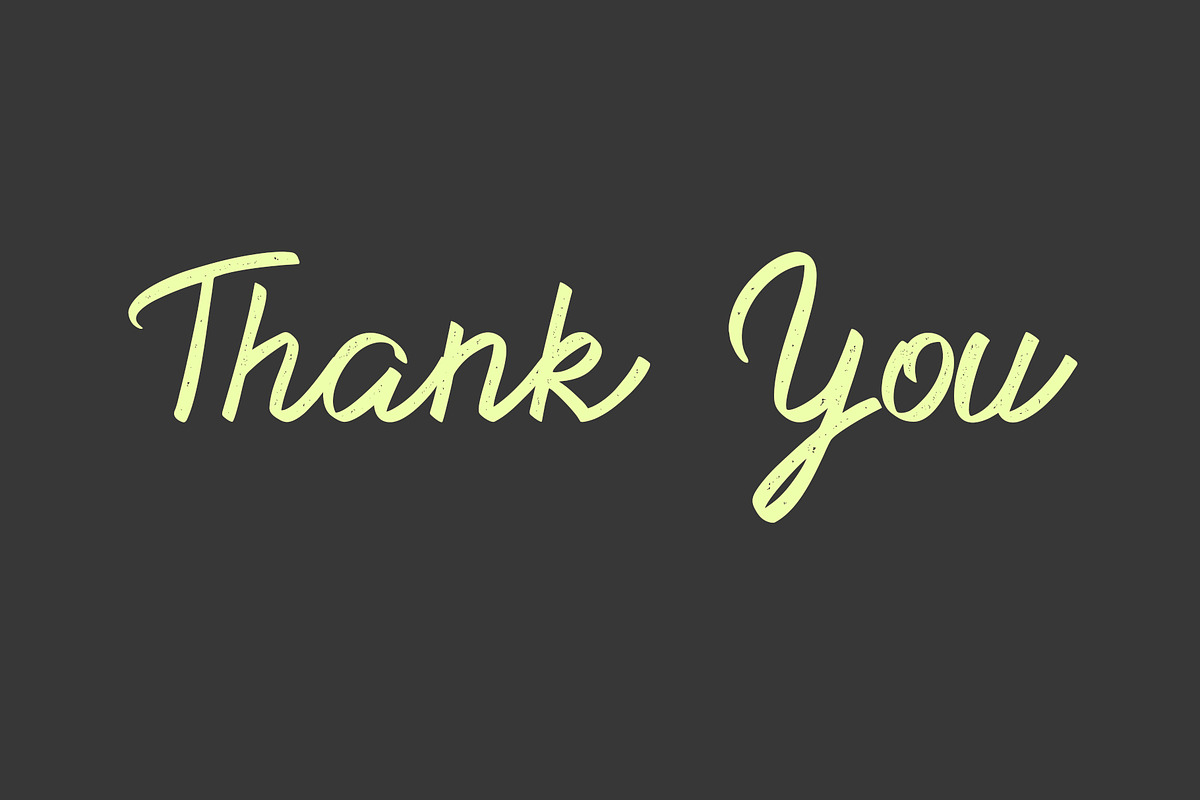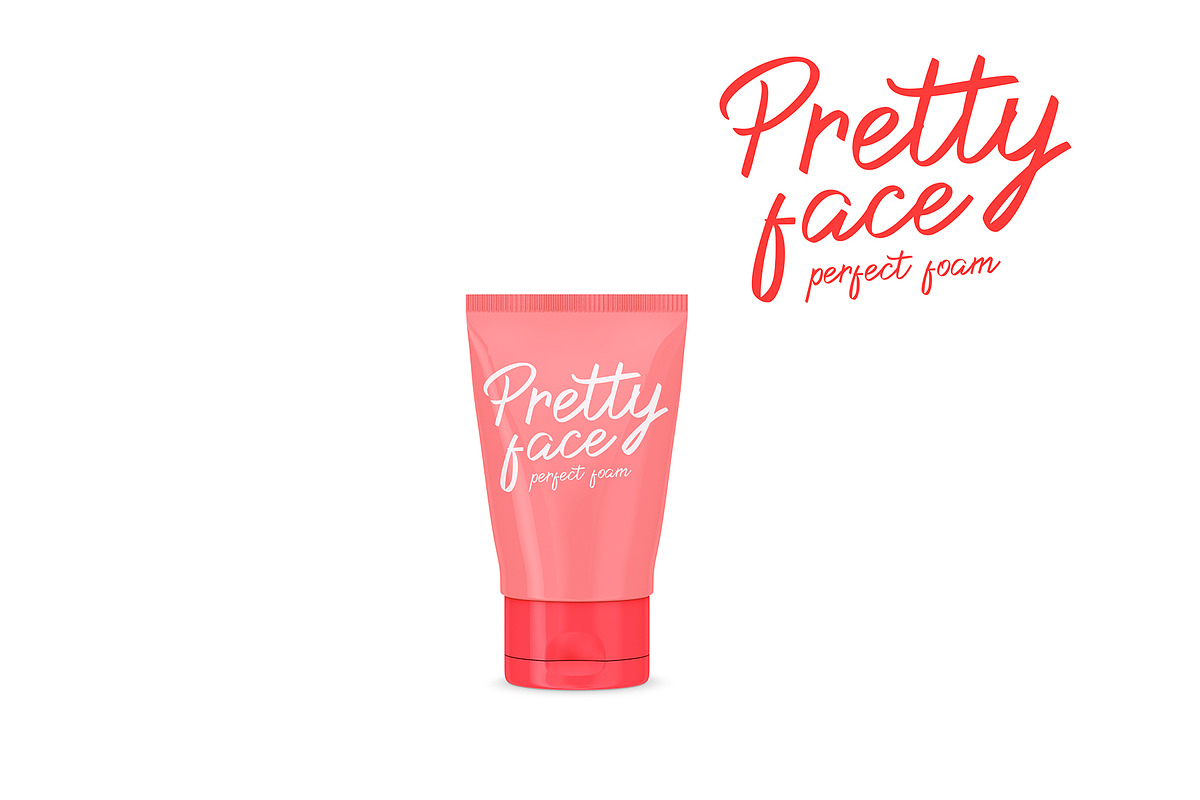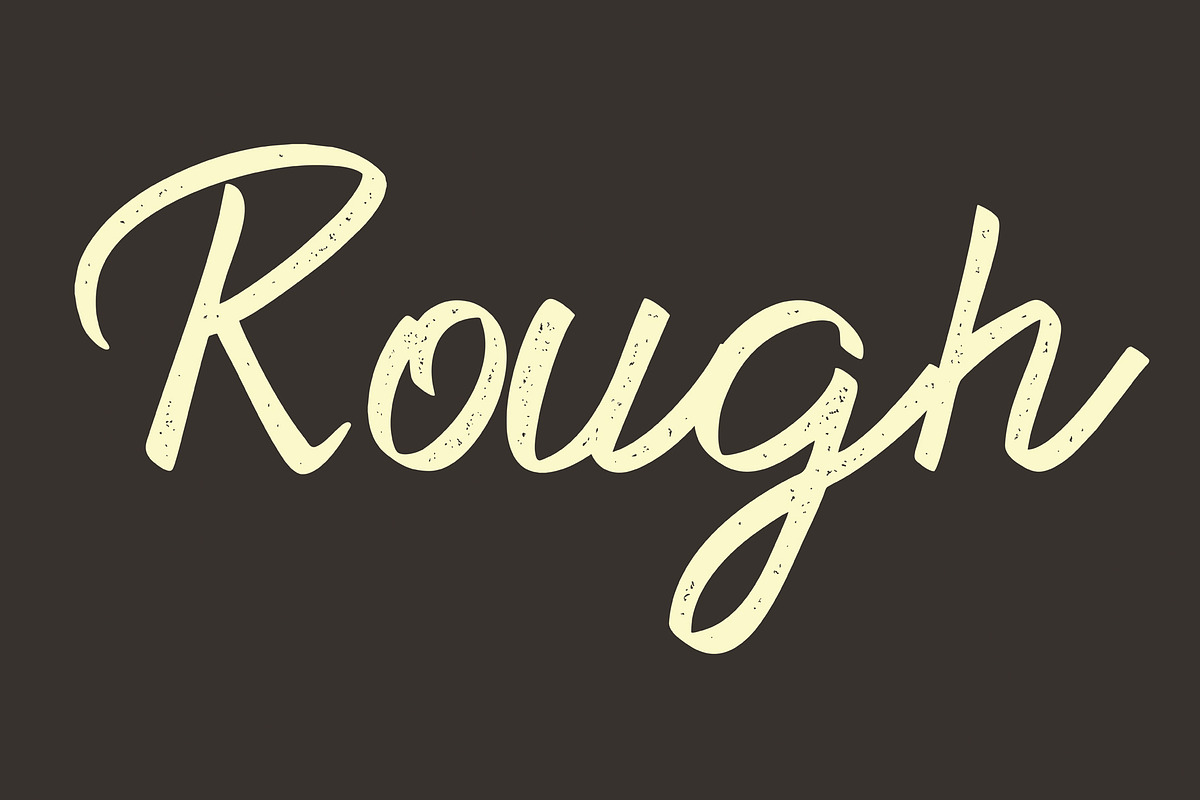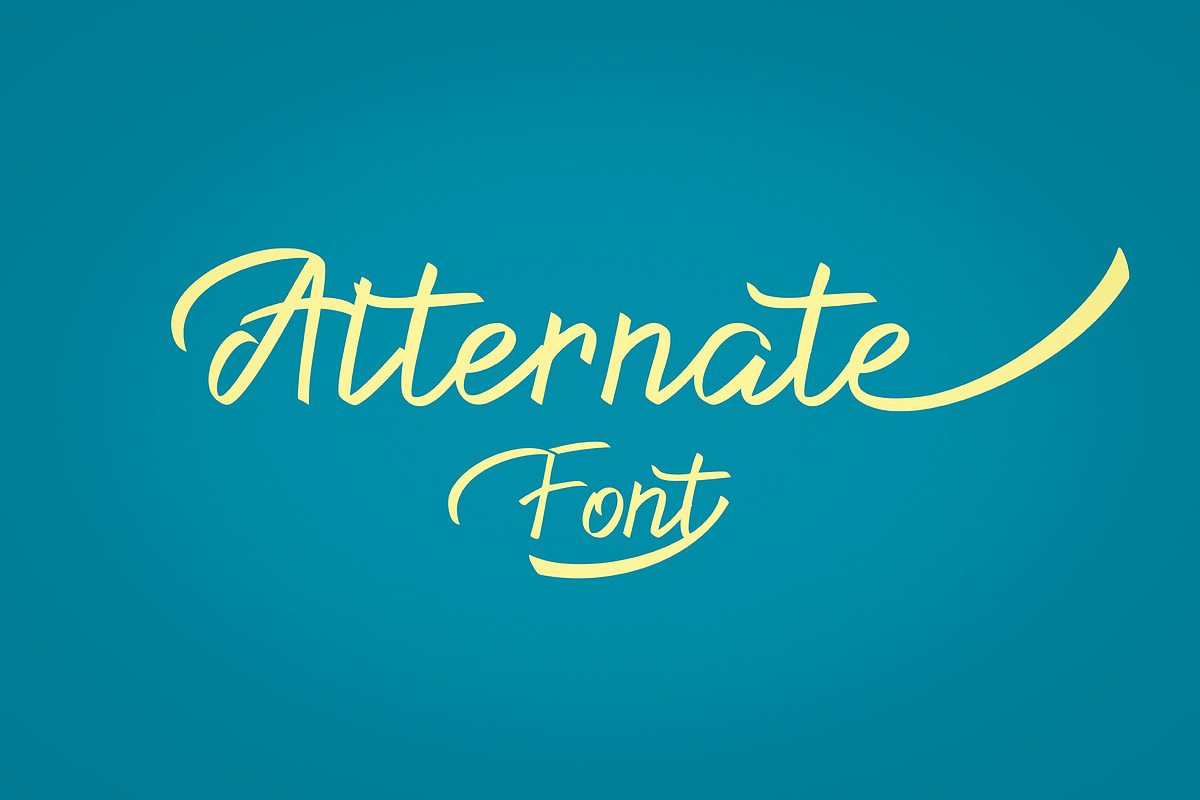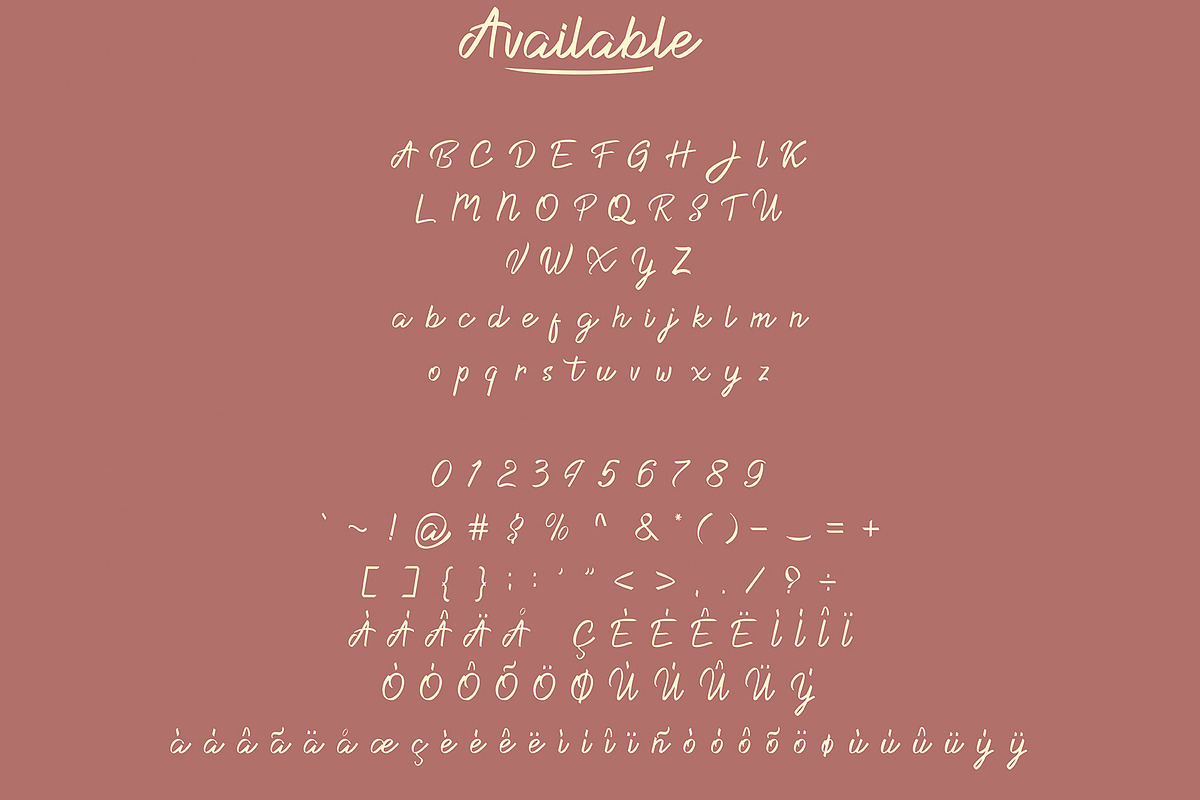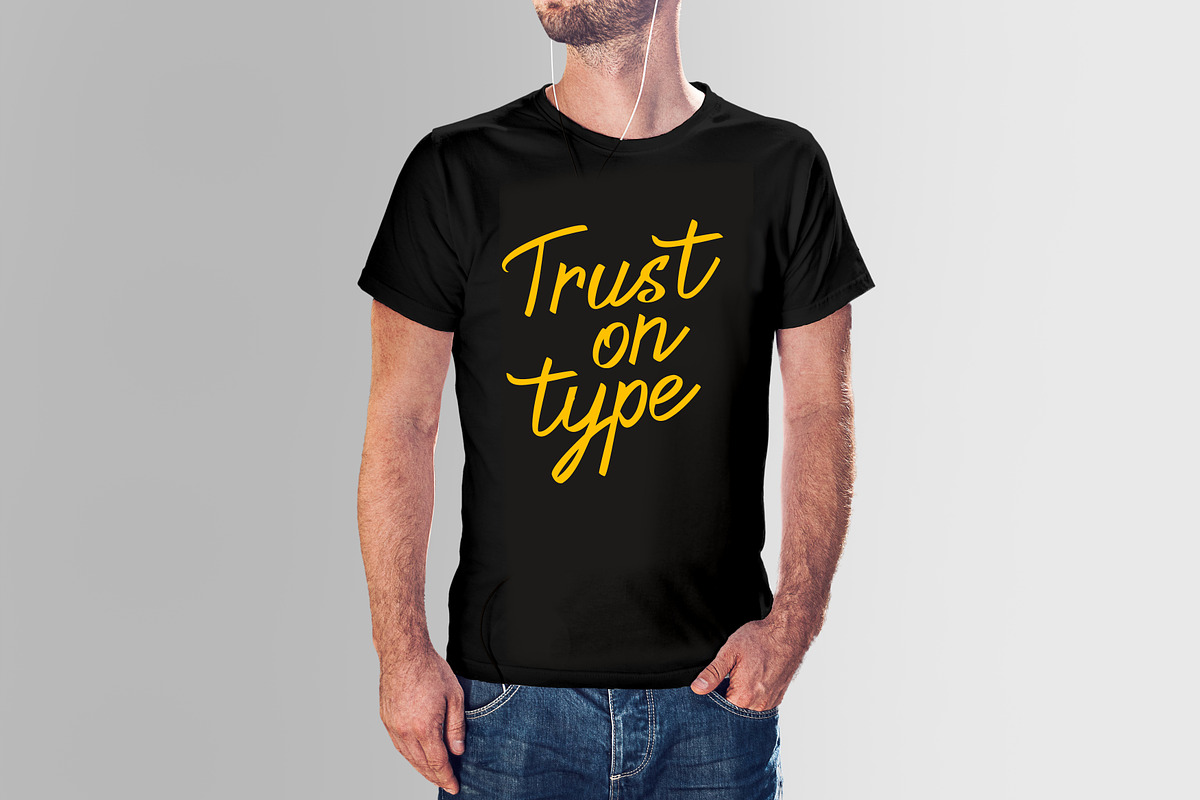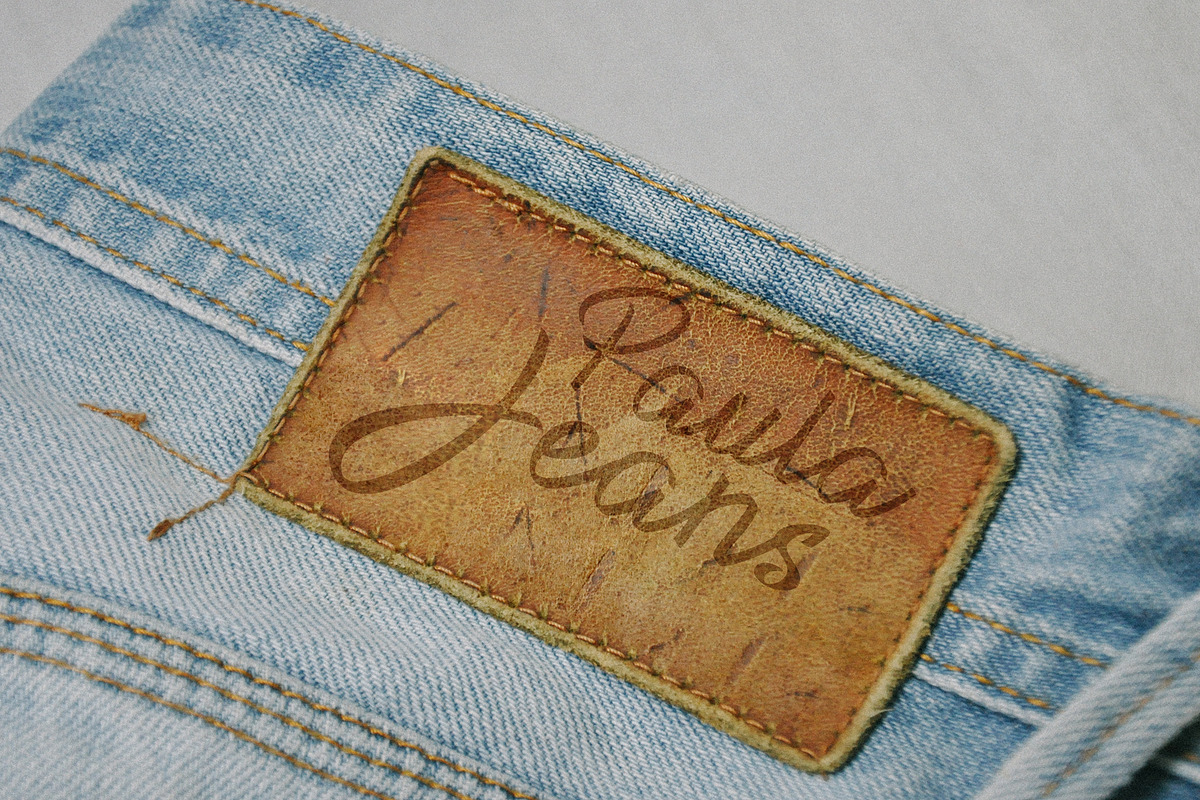
Dacilla Script
INTRODUCING - DACILLA SCRIPT
Dacilla is a script type, with natural script curves and smooth lines. It has 2 additional styles, rough and alternate. Dacilla Script ideal for logos, handwritten quotes, product packaging, headers, posters, merchandise, social media, greeting cards, magazines, banners, etc.